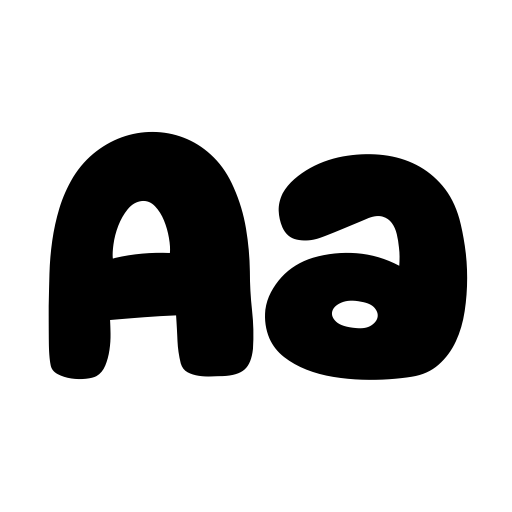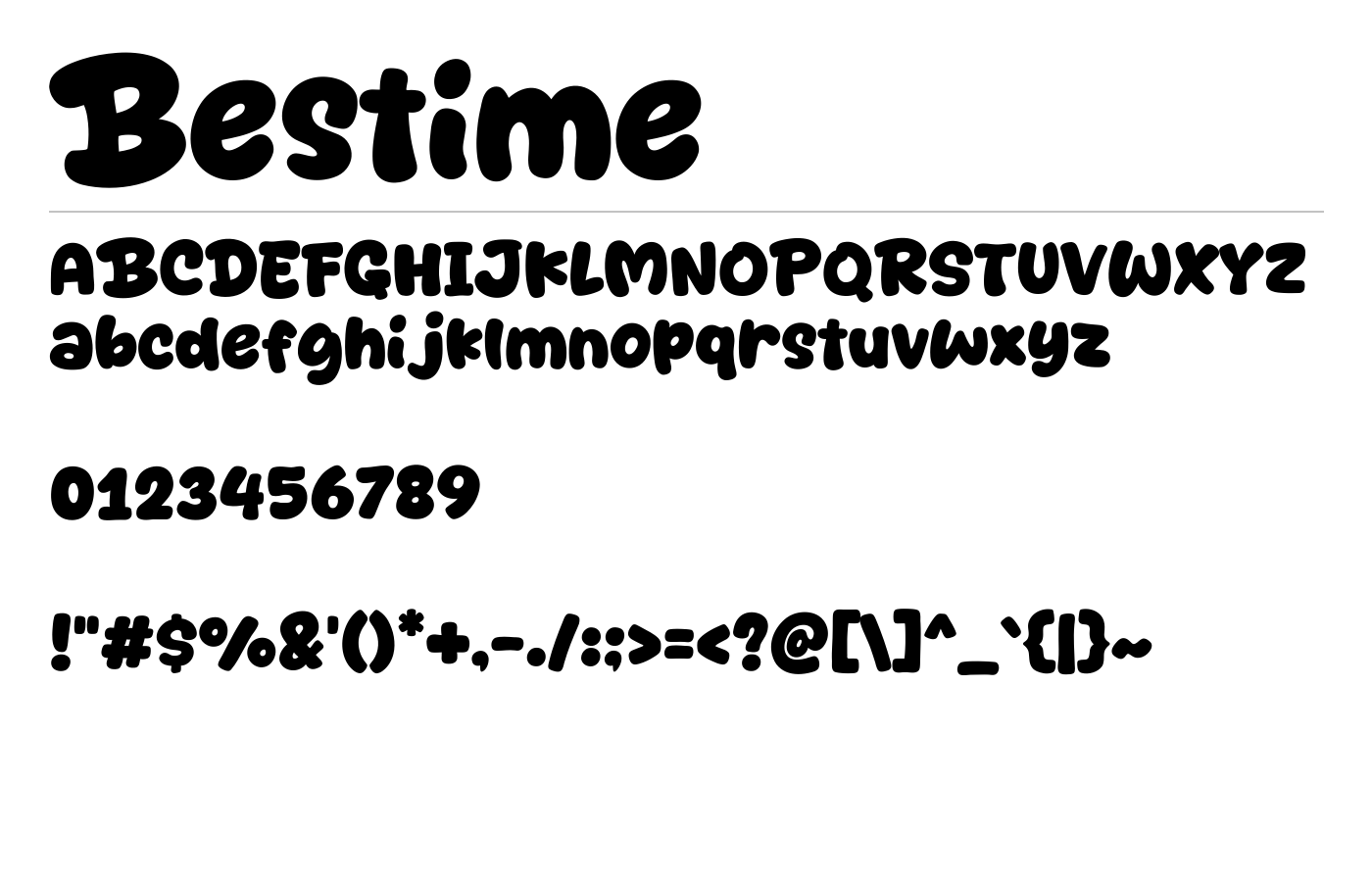
Bestime is a bold, playful sans serif font with rounded, friendly letterforms and a chunky structure that evokes a casual, fun vibe. Its high x-height and even weight make it highly readable and approachable, perfect for children’s books, informal branding, and cheerful headlines. This font works well where a lighthearted, energetic personality is desired, adding warmth and charm to any design.
Bestime Font
About Bestime Font